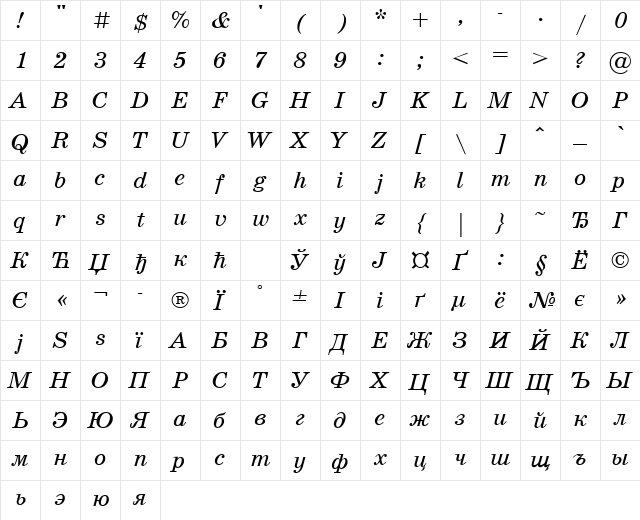
SchoolBookCTT Italic
Design Context for SchoolBookCTT Typeface
SchoolBookCTT offers clean, dependable letterforms without strong stylistic allegiance, making it a practical choice for designers who need flexibility. The dynamic lean of this cut emphasises speed and emphasis in any layout.
Pro Tip: Try SchoolBookCTT for annotation and caption copy alongside an upright companion — the contrast in angle creates a dynamic but ordered typographic system.